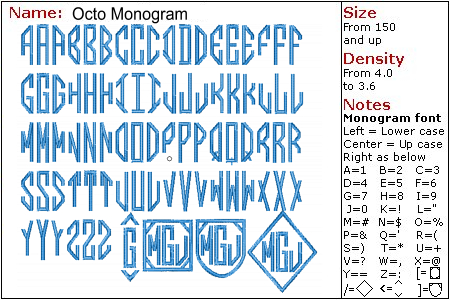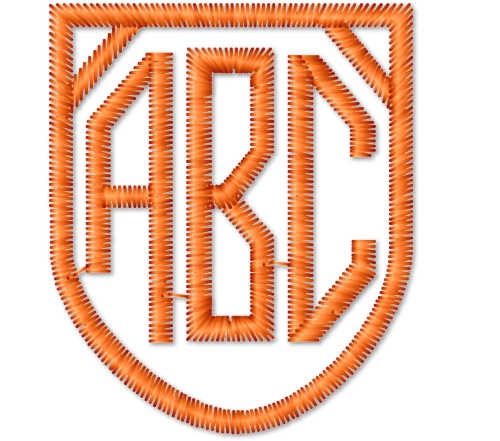
Octo Monogram
This font is suitable for 1, 2 or 3 letter monogramming. The font pack contains accents for single letter and 3 letter styles. To utilize this style use the lower case letters for the left side letters, upper case for center letters and punctuation for right side letters.
Style : Puffy Font